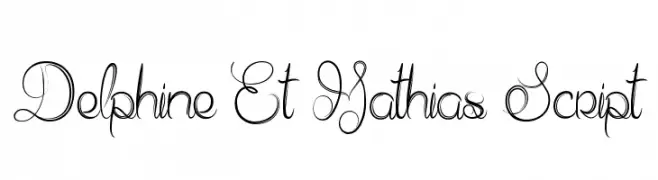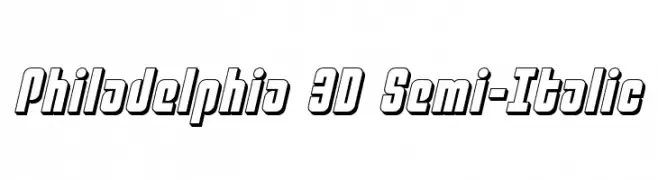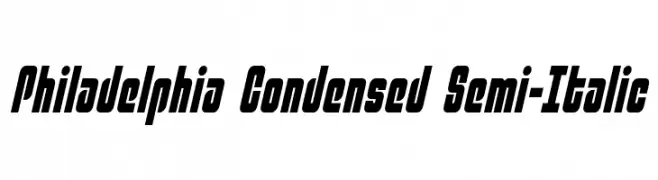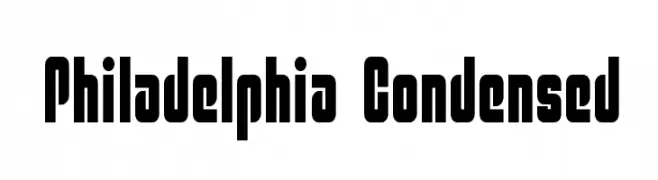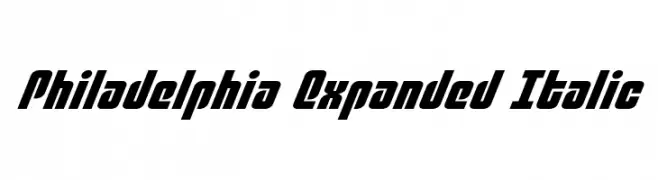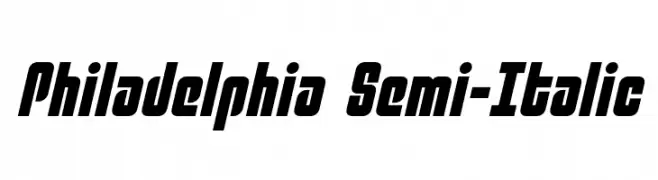
An elegant script font with intricate, flowing lines and graceful curves.
A bold, decorative script font with elegant loops and swirls.
A bold, condensed, semi-italic font with a modern and dynamic style.
A bold, slanted, geometric font with a strong, impactful presence.
A bold, expanded, semi-italic font with a modern and dynamic style.
A bold, semi-italic font with a dynamic and energetic style.
A bold, 3D italic font with a modern and dynamic style.
A bold, 3D semi-italic font with a dynamic and modern style.
A bold, expanded, and italic font with a modern and dynamic style.
A bold, condensed font with a modern, industrial style.